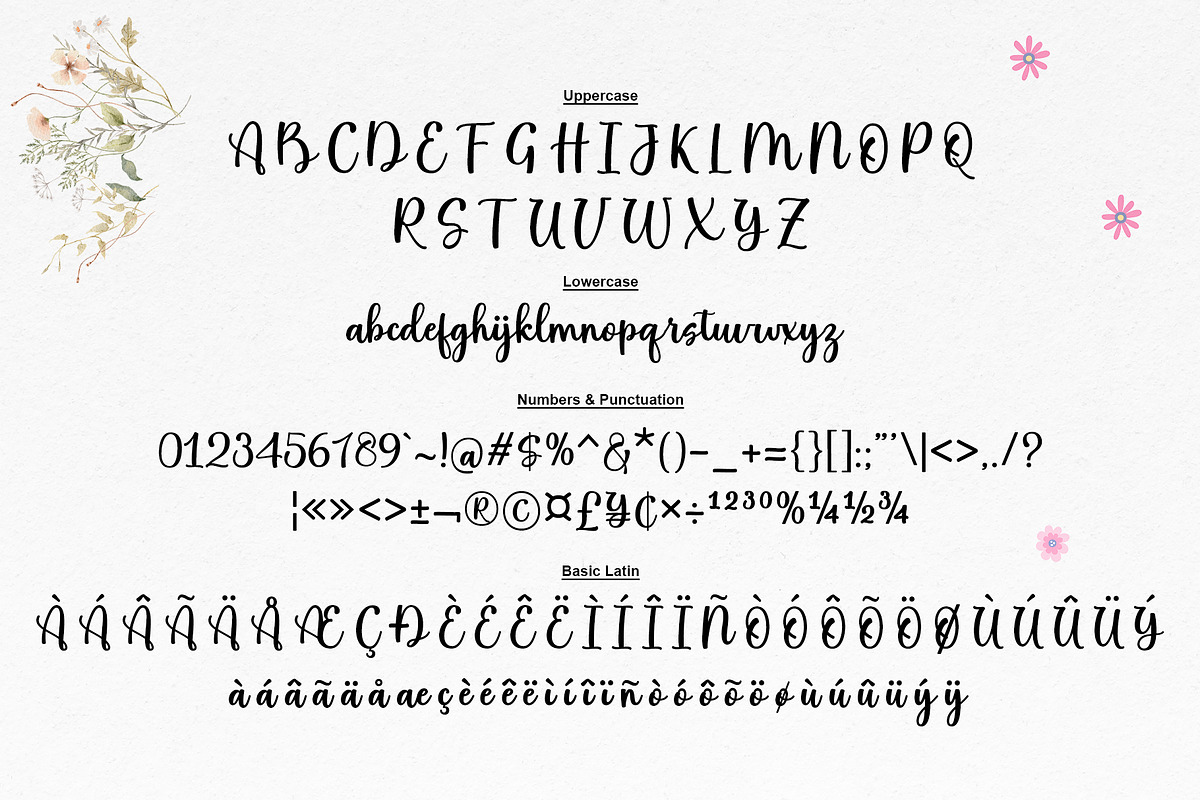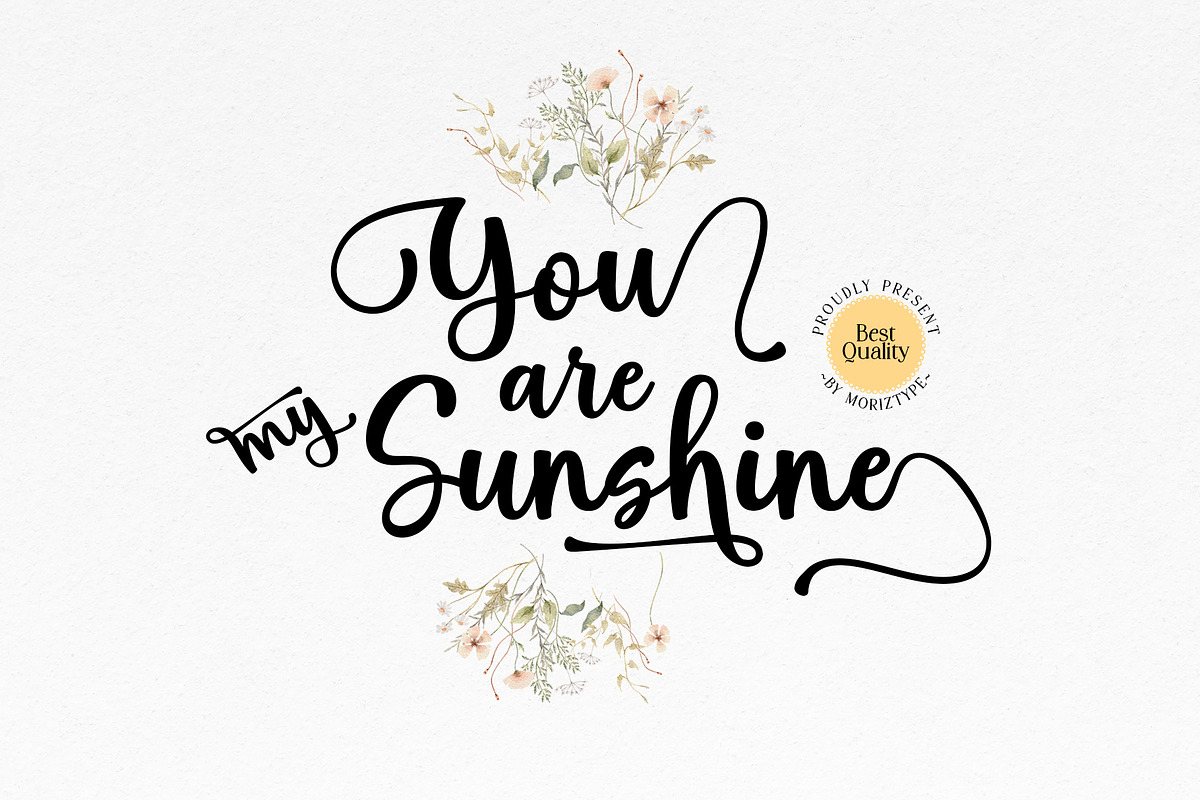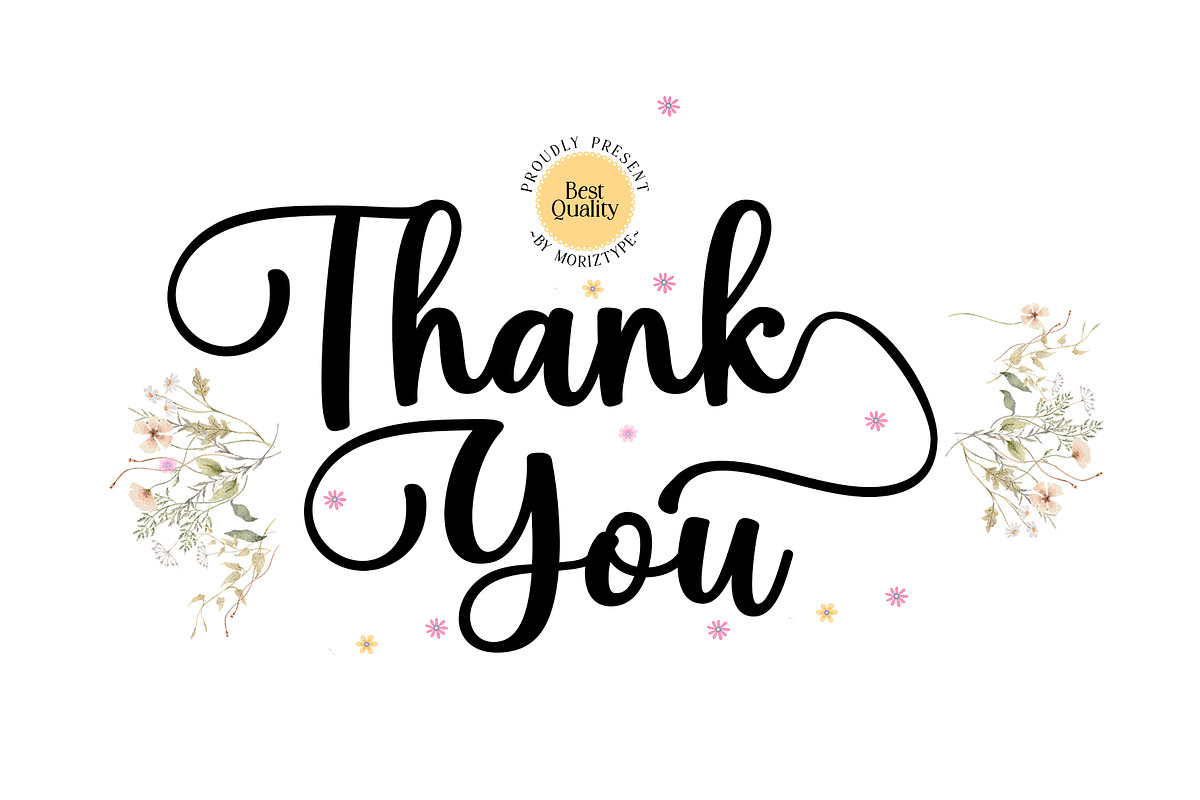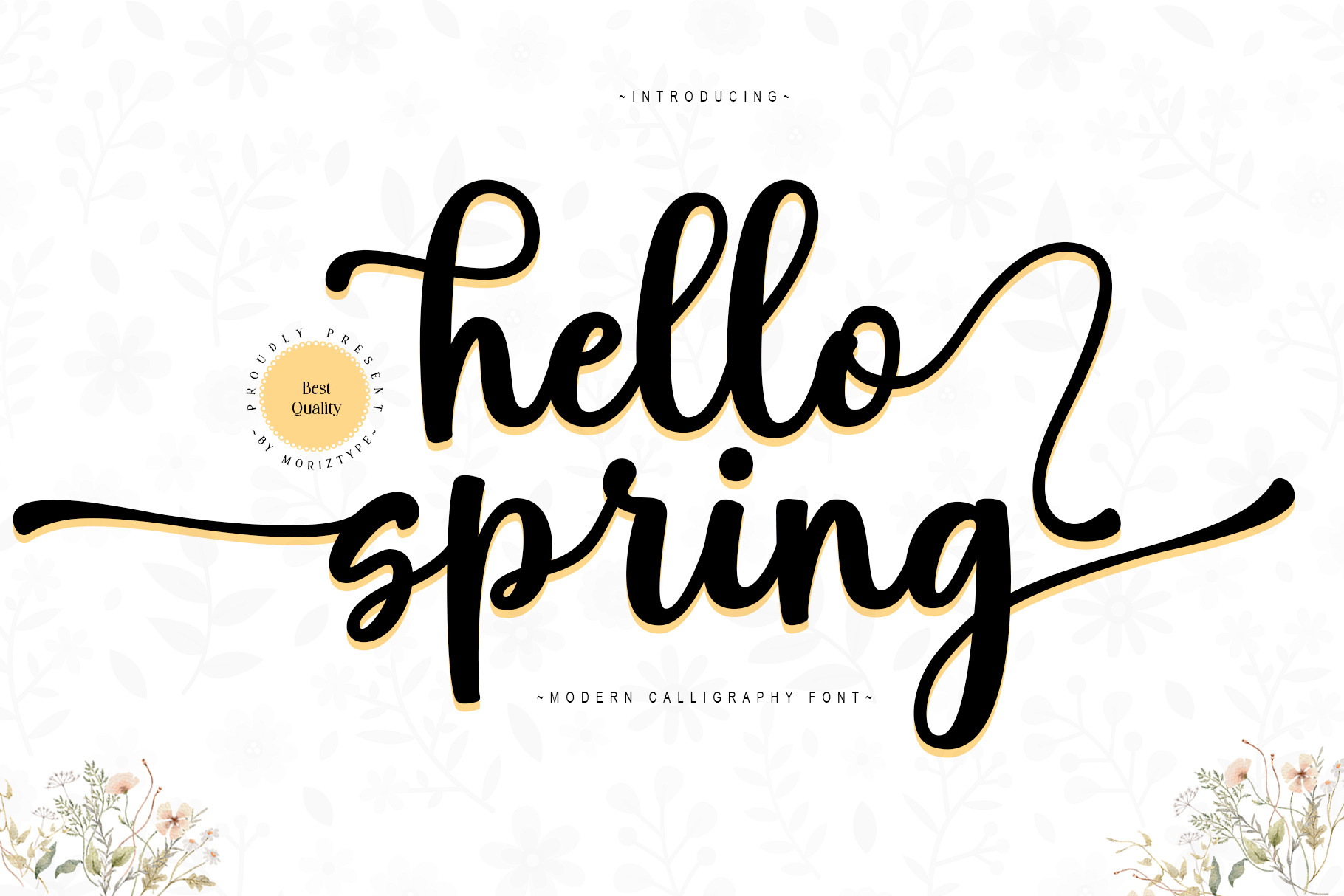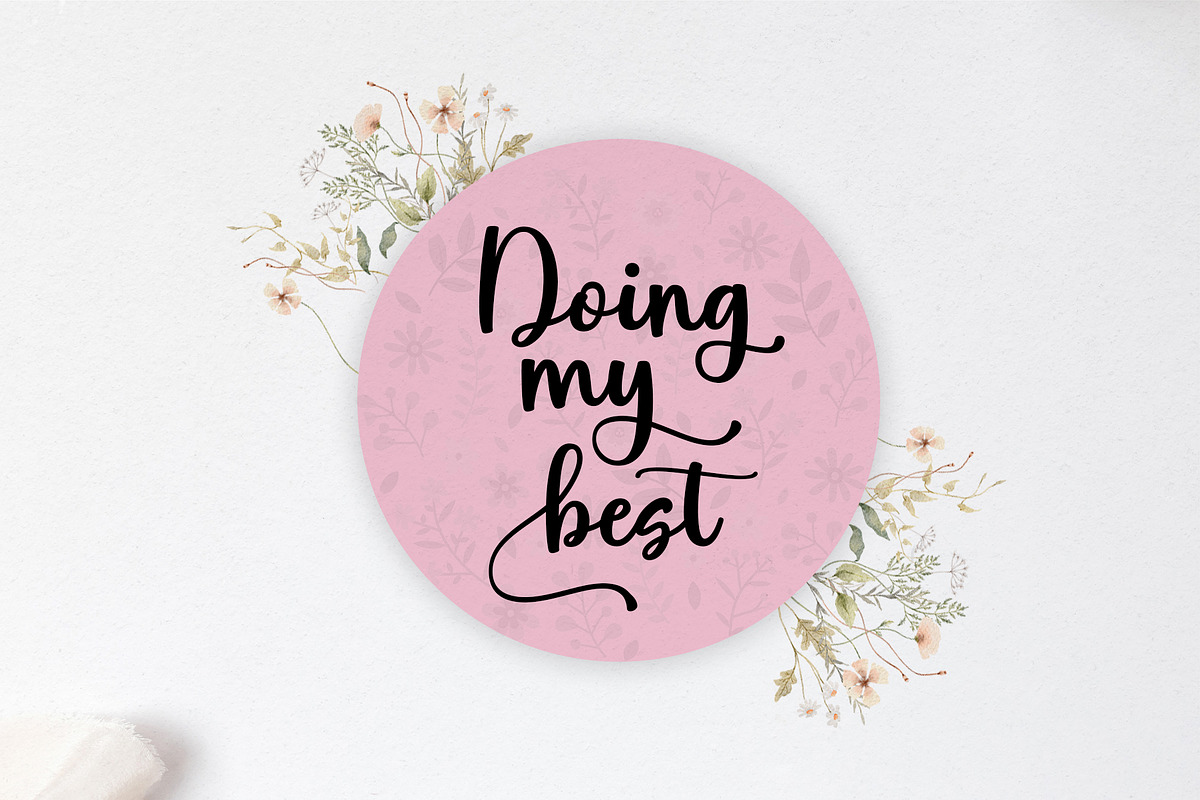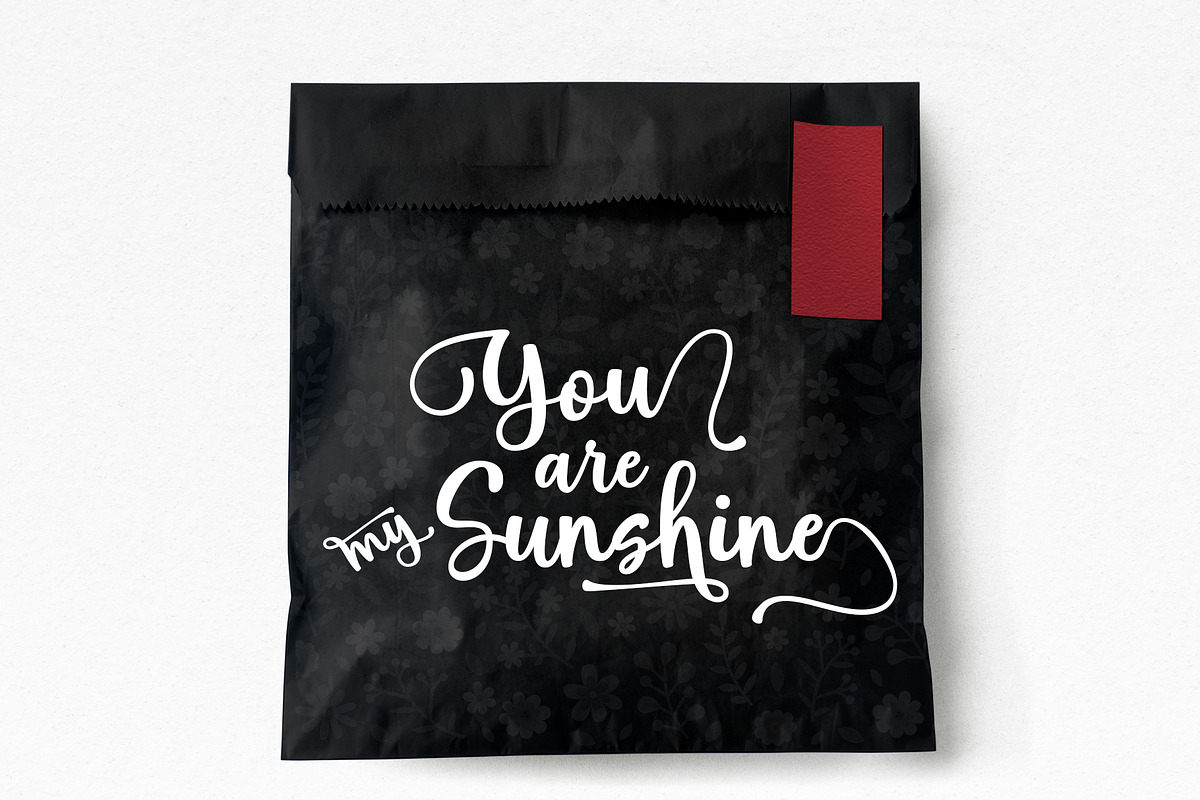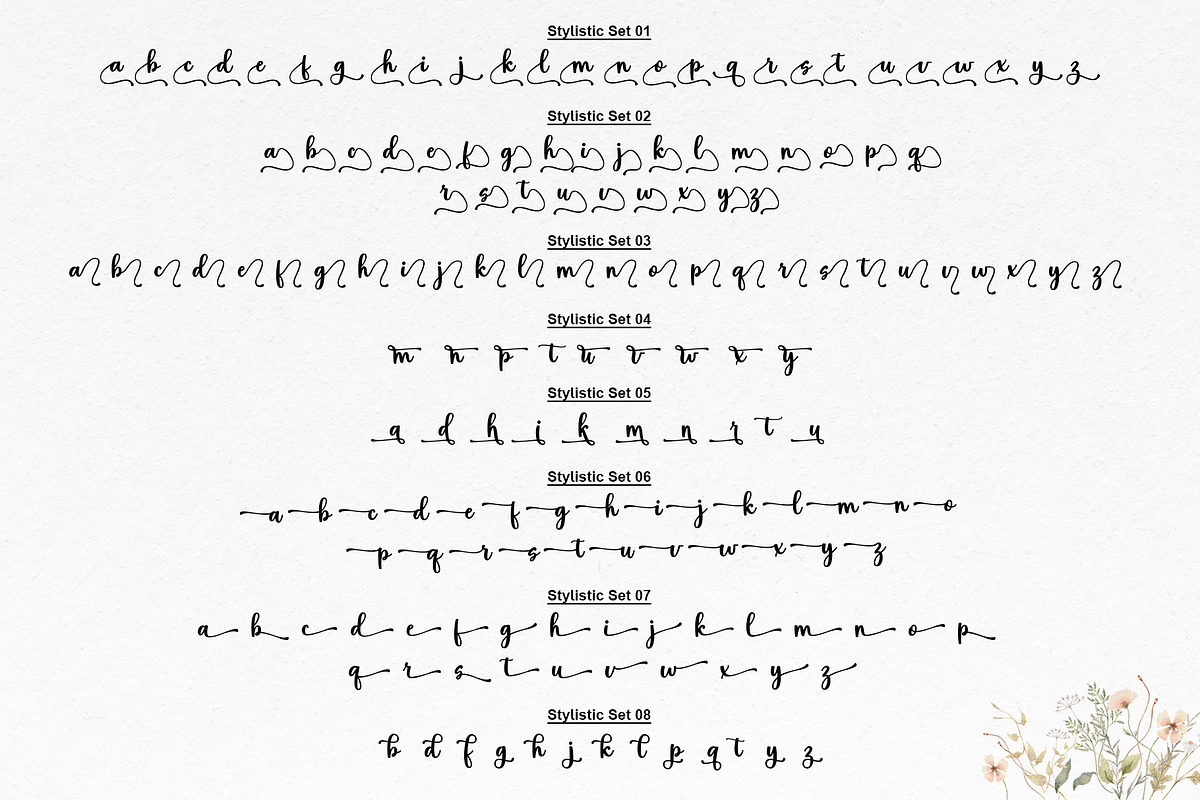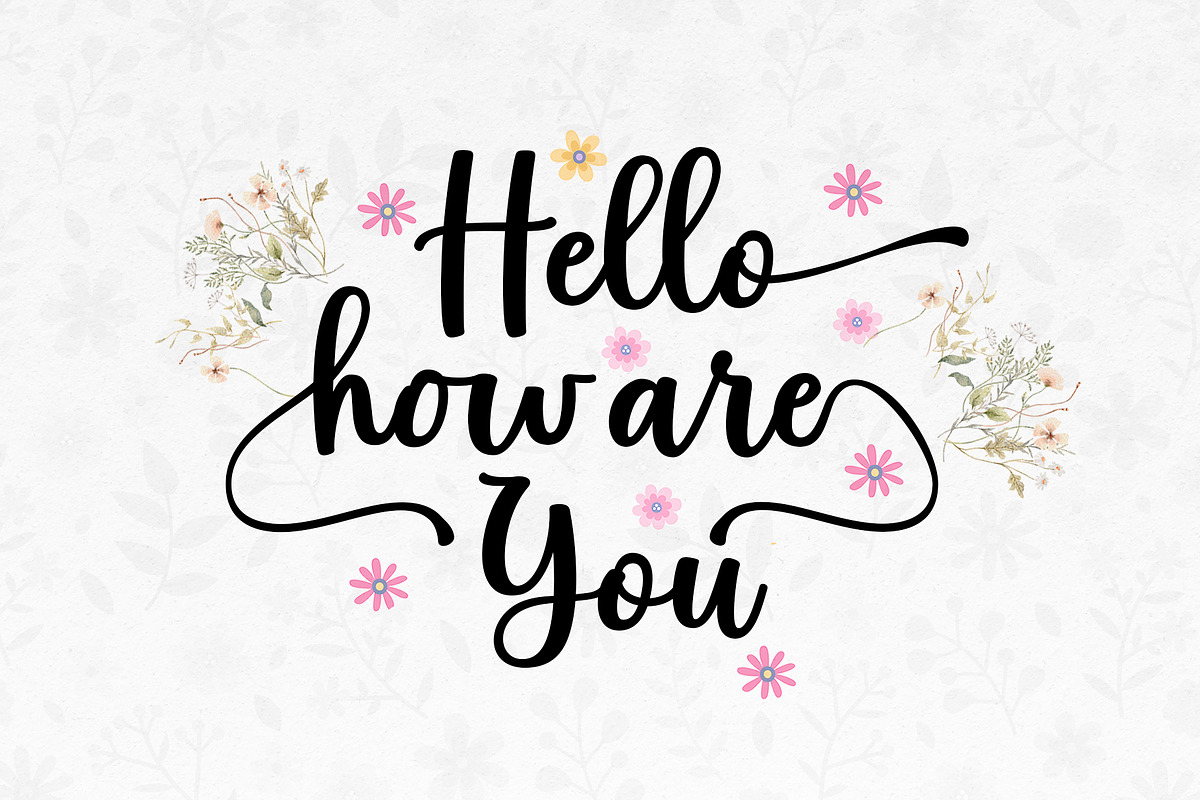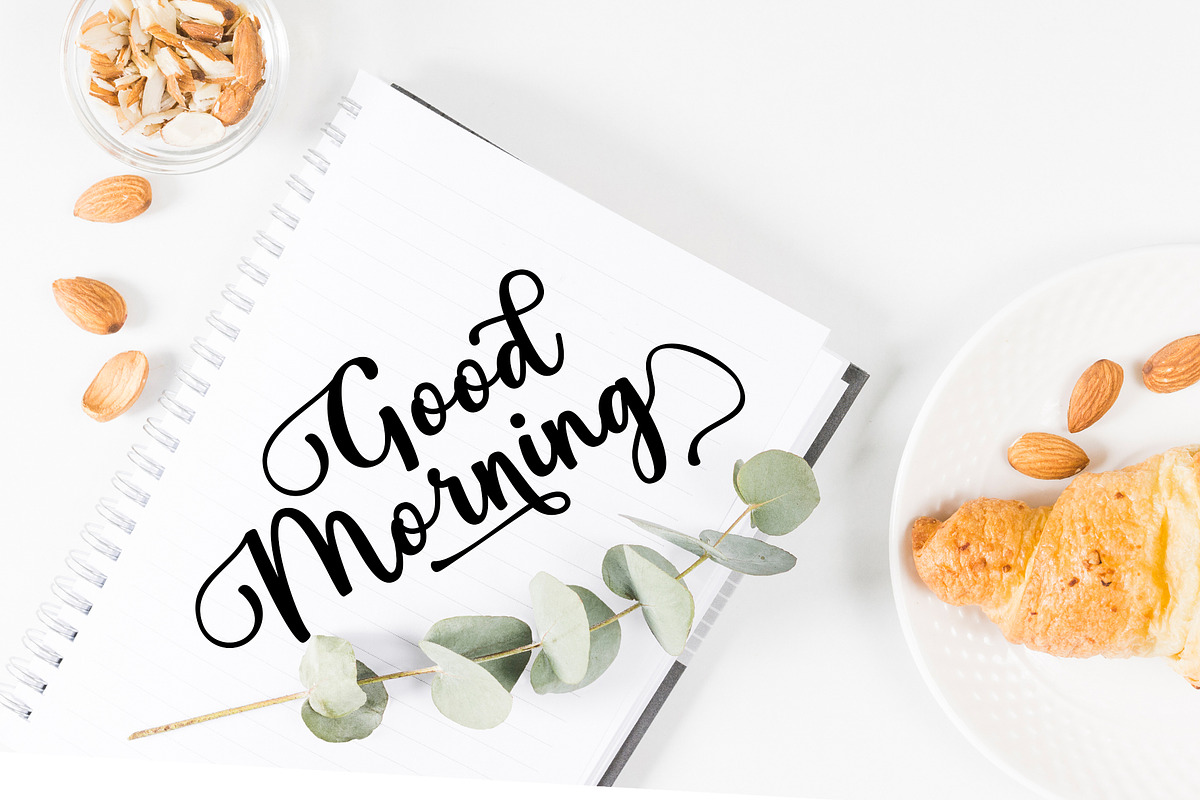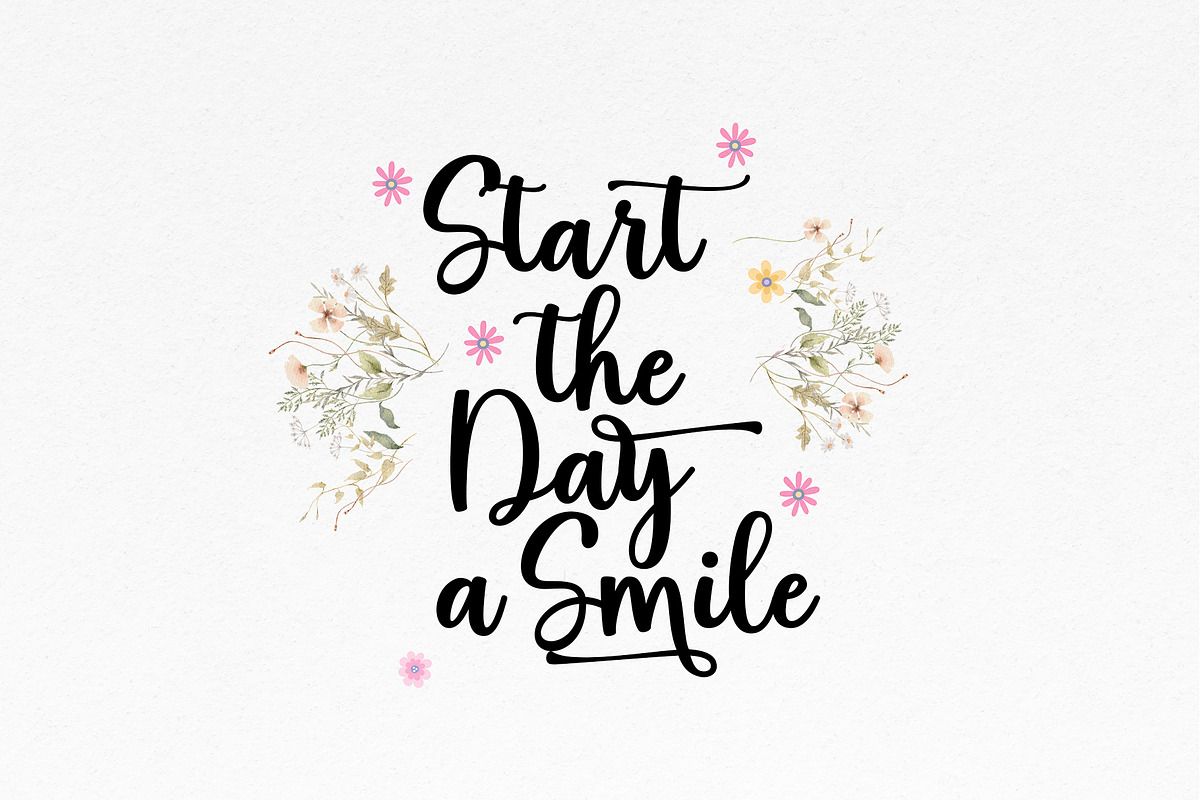
Hello Spring Script Font
Hello Spring is a and elegant handwritten font. This font is neatly crafted and highly detailed.Use it for any design projects that require a charming appearance!
Hello Spring has 591 glyphs and all PUA encoded characters. which means you can access all of the glyphs and swashes with ease!